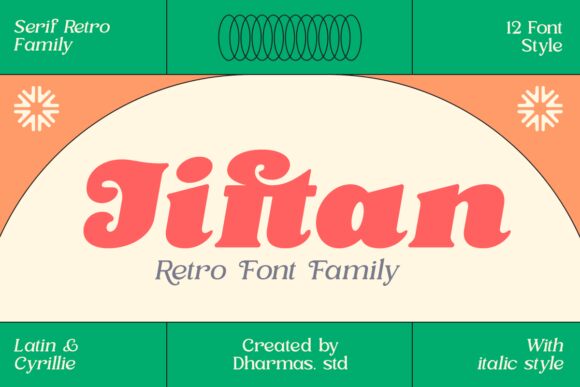
Jiftan Black Italic font by Dharmas Studio is a bold free serif font with a retro-inspired and formal presence. It combines old and new typographic elements, some of which consist of shiny surfaces of printed metal types, block serifs, bold letterforms, and pointed arches. Jiftan recreates W.A. Dwiggins’s definition stating the genre is “for general printing” rather than strictly decorative.